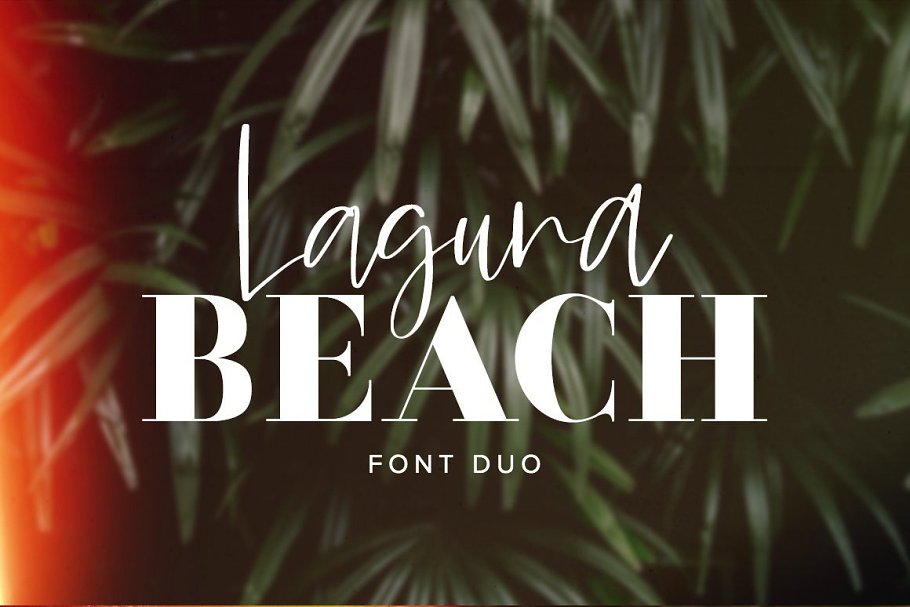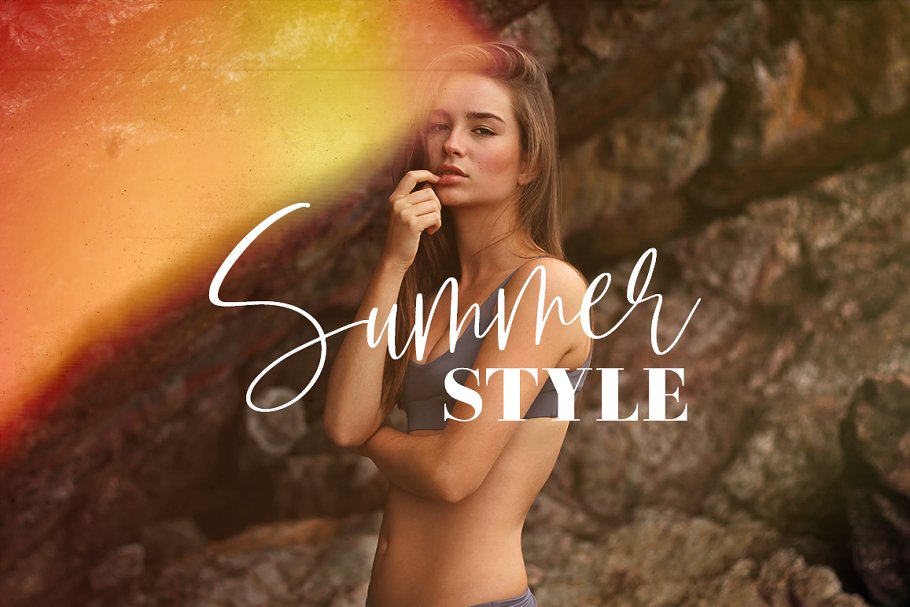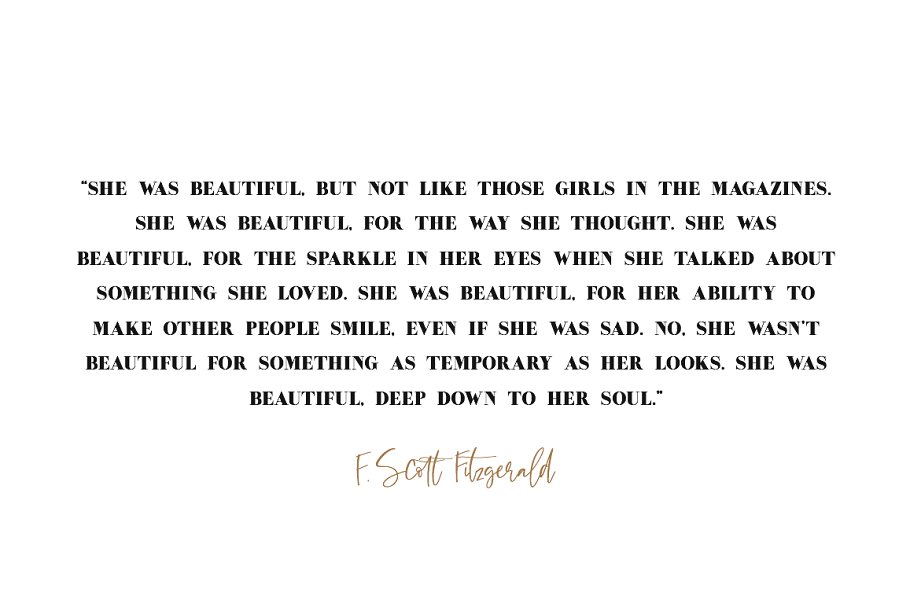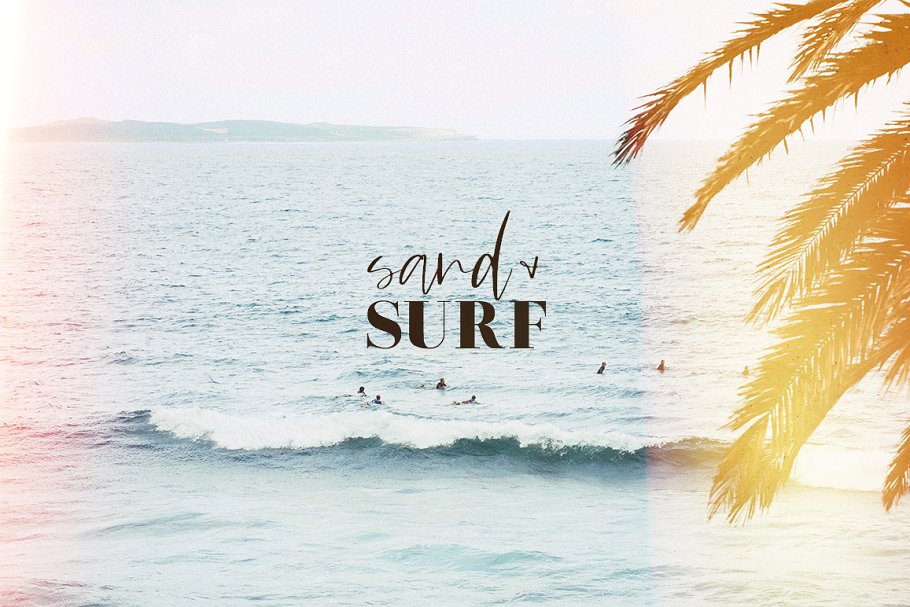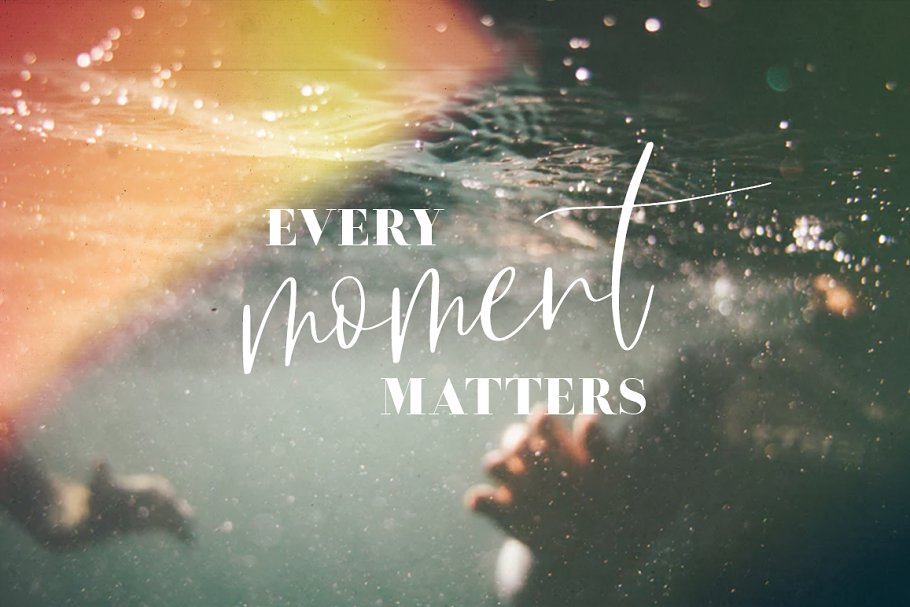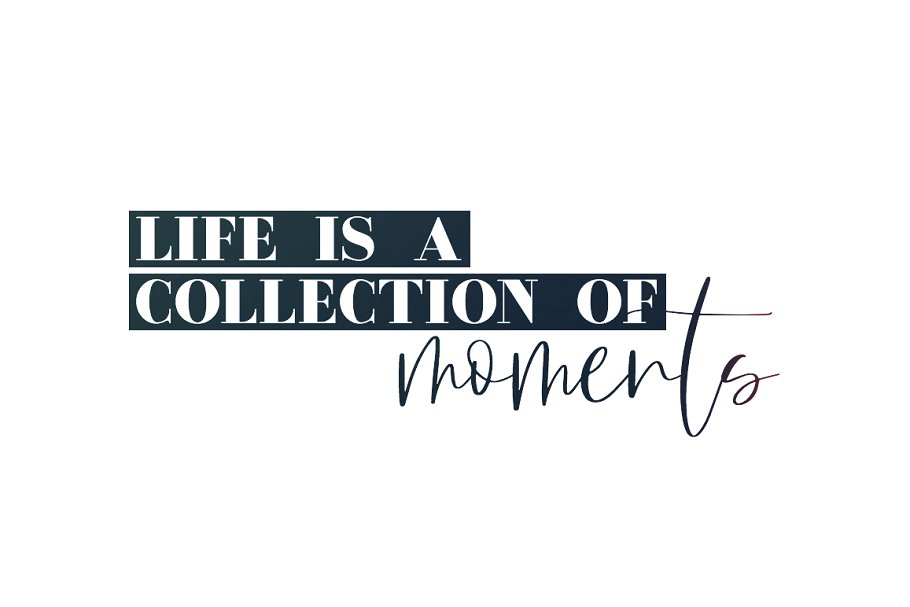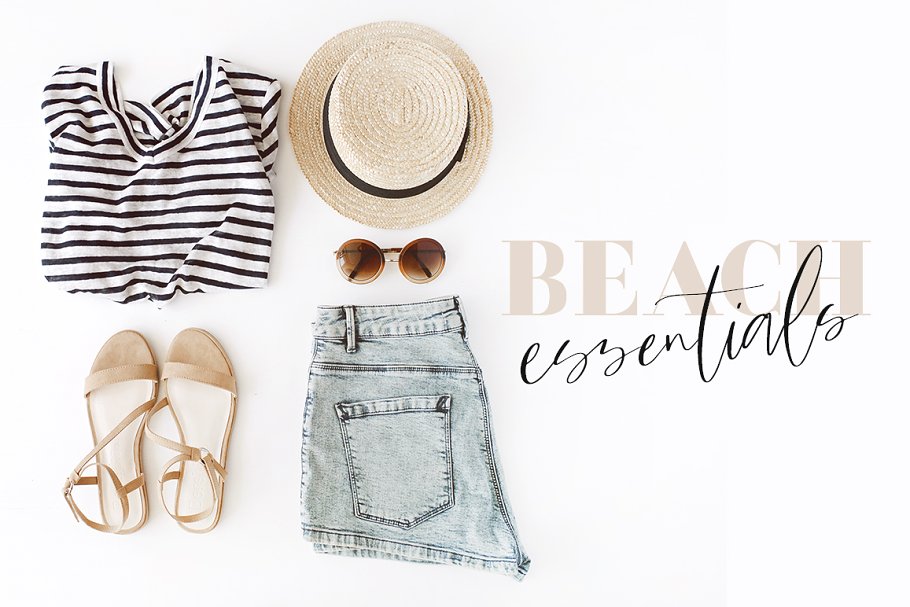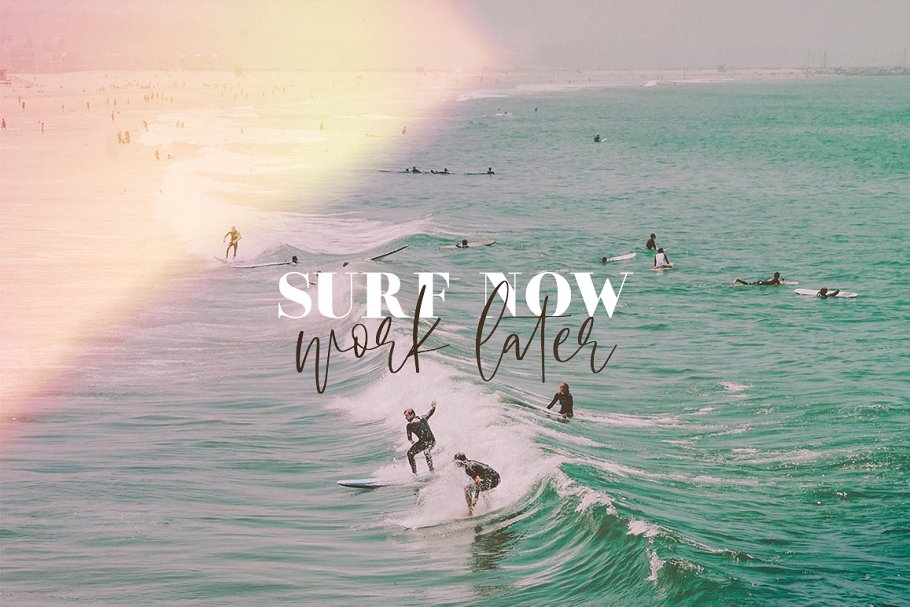
About the Laguna Beach Duo Font
Say hello to Laguna Beach, a stunning serif and script font duo! This classic and simple serif paired with the whimsical script makes a killer combination for every design project, including wedding invitations, blog posts and headers, Instagram posts, quotes, logos and branding, advertising, and more!In this download, you’ll receive two font files (script + serif) that look gorgeous when used together and apart!Includes:Laguna Beach Serif (OTF + TTF), with uppercase letters, numbers and punctuation, and multilingual supportLaguna Beach Script (OTF + TTF), with uppercase + lowercase letters, alternates, numbers and punctuation, multilingual support, 33 ligatures, and auto-context featureLaguna Beach Script includes an auto-context feature, where double letters will automatically be replaced with either a corresponding ligature or a standard and alternate letter to avoid a fake script look
It also works within entire words and for beginnings and endings of words! (For example, the phrase surf forever would automatically use the alternate f for the word forever since it comes soon after the default f in surf, Then, the second e in forever would be the alternate since the default e was recently used as the first)
Just turn on the contextual alternates and ligatures features in Photoshop (shown in the last sample photo)33 Ligatures, which include al all am ar at ch ct ee et ff fl hh ll mm nn on on ont oo ot ou ov pp rr sl sm ss st th the tt vv ww xx Questions? Shoot me a message and I’ll be happy to help!Want a first look before new fonts come out? Follow me on Instagram! (www